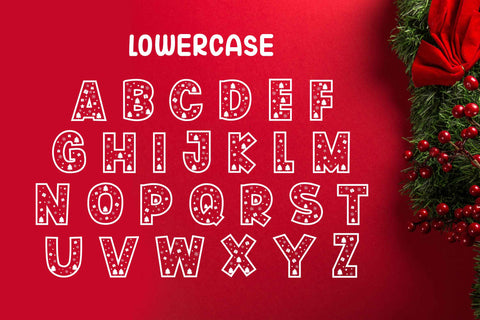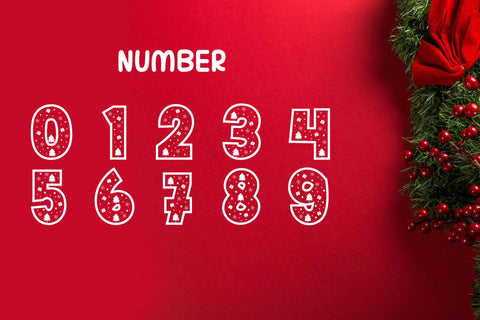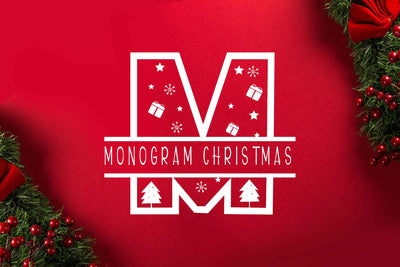
Monogram Christmas
Monogram Christmas is a decorative font with Christmas knick-knacks that color each character. This font has the potential to become your favorite font because of its beautiful letter shapes. This font is available in uppercase & lowercase, and number